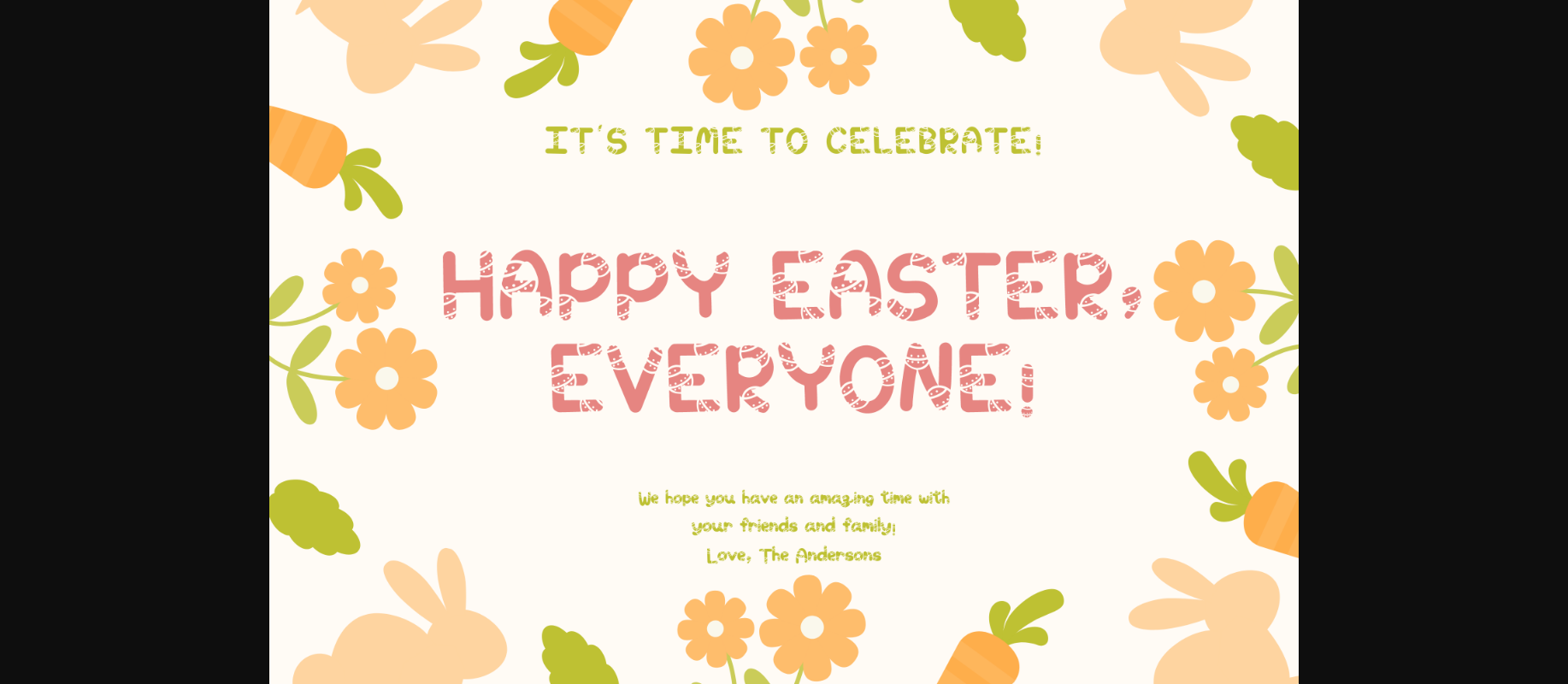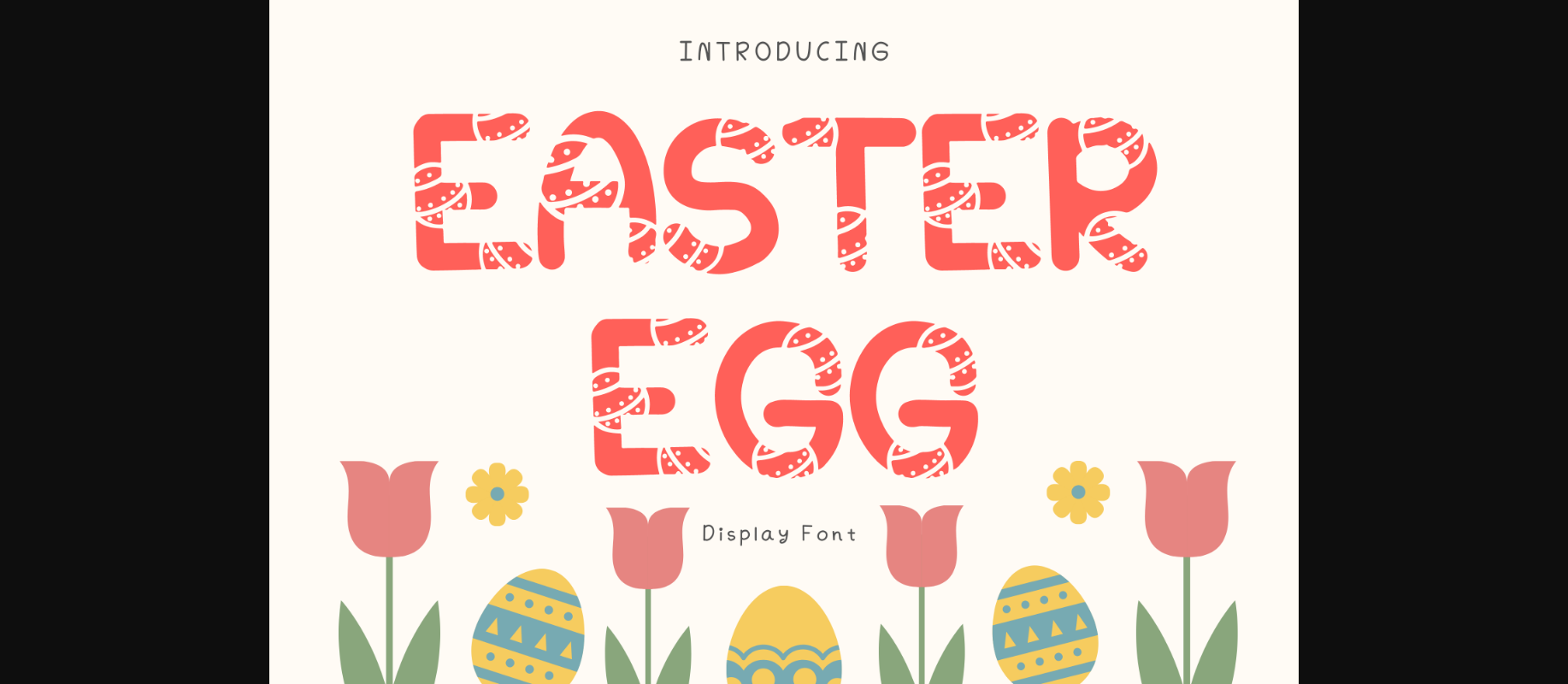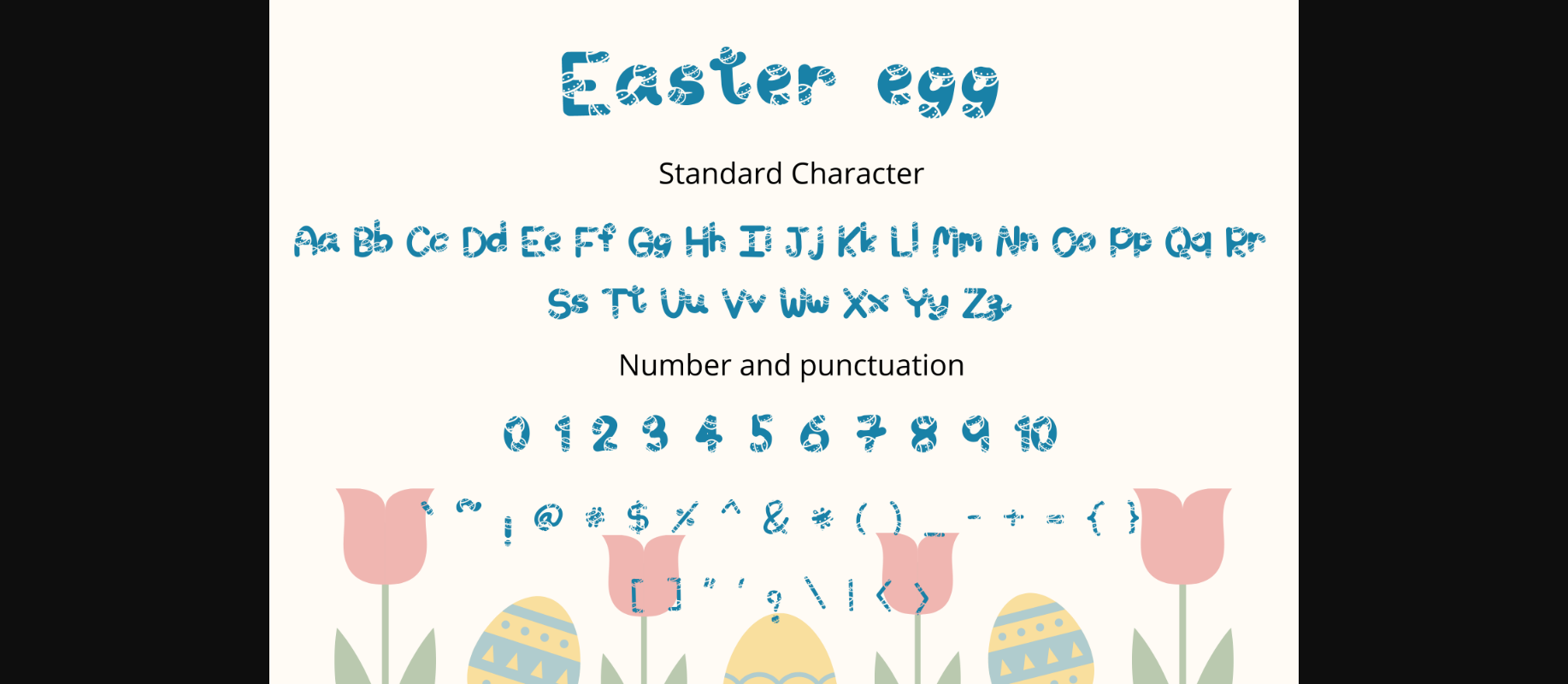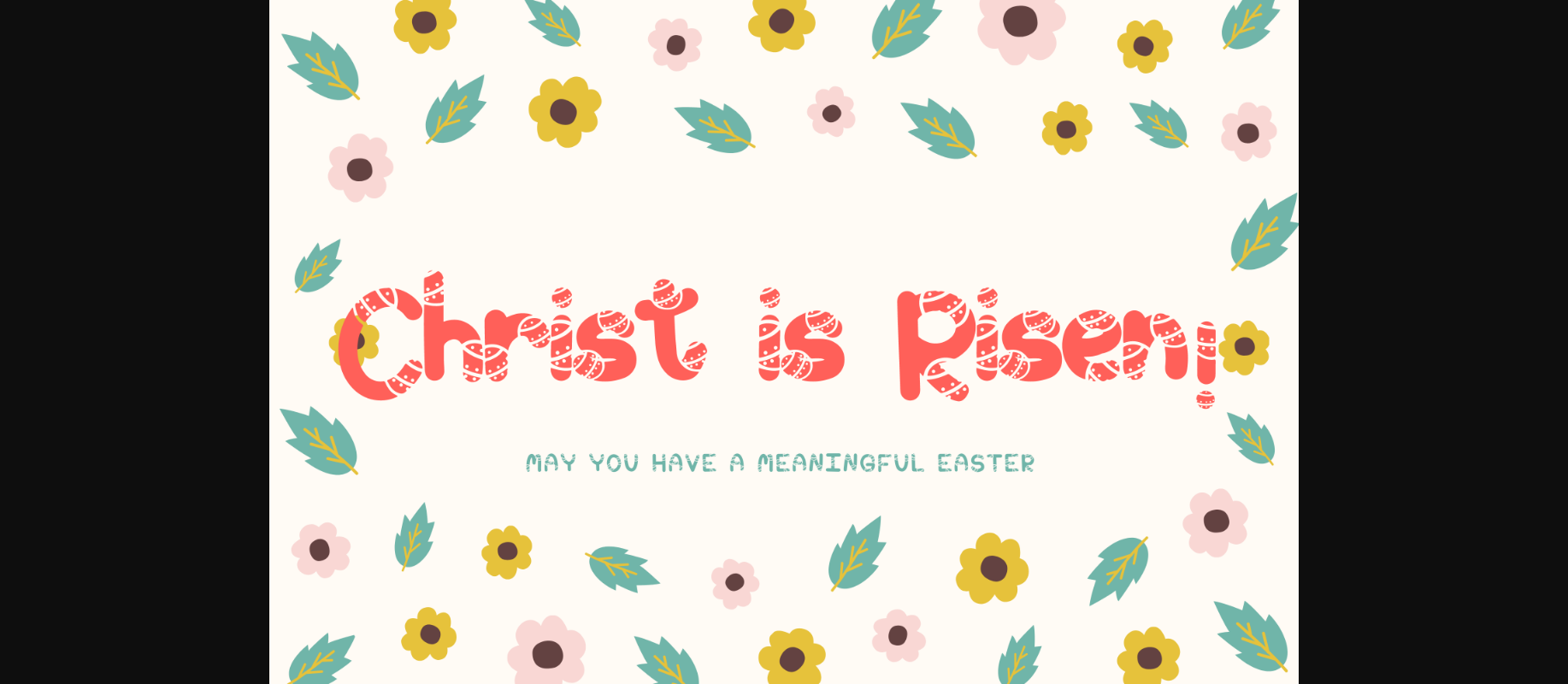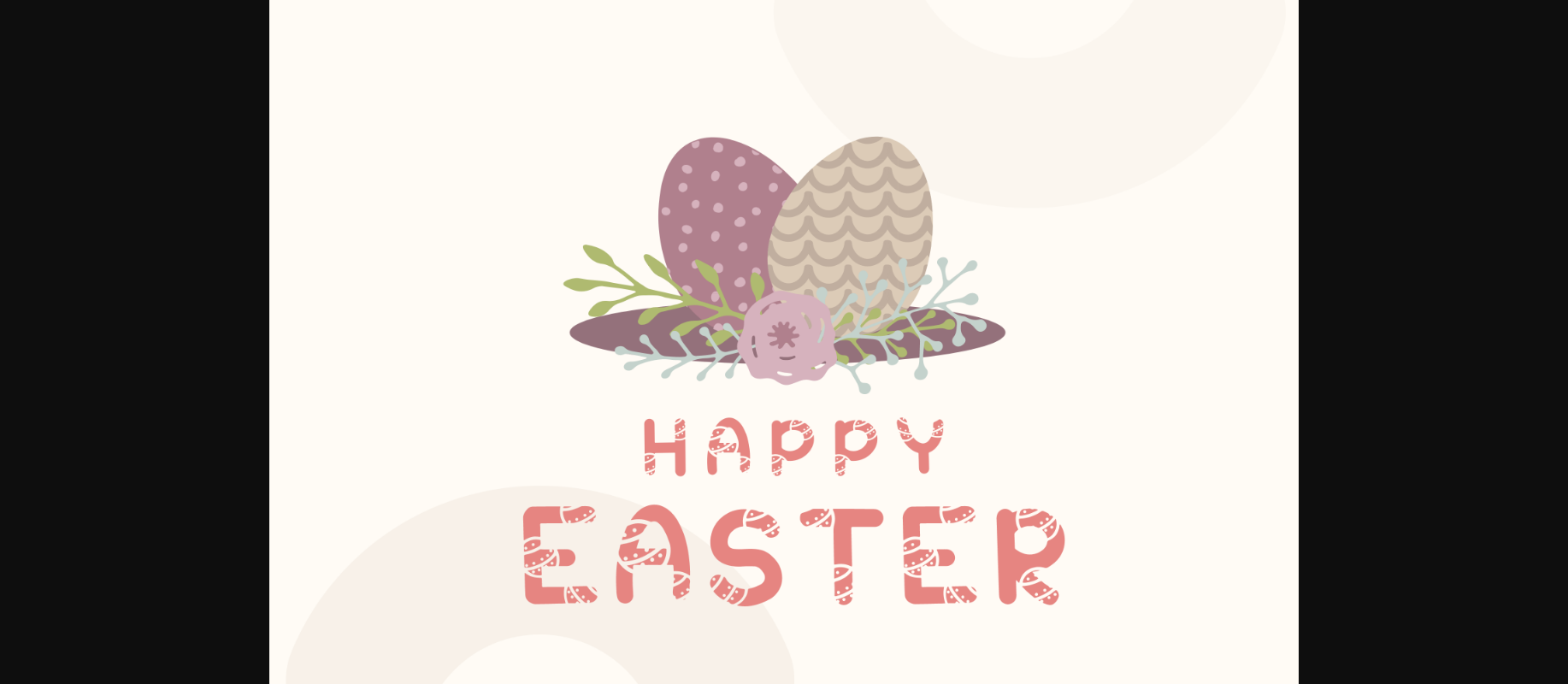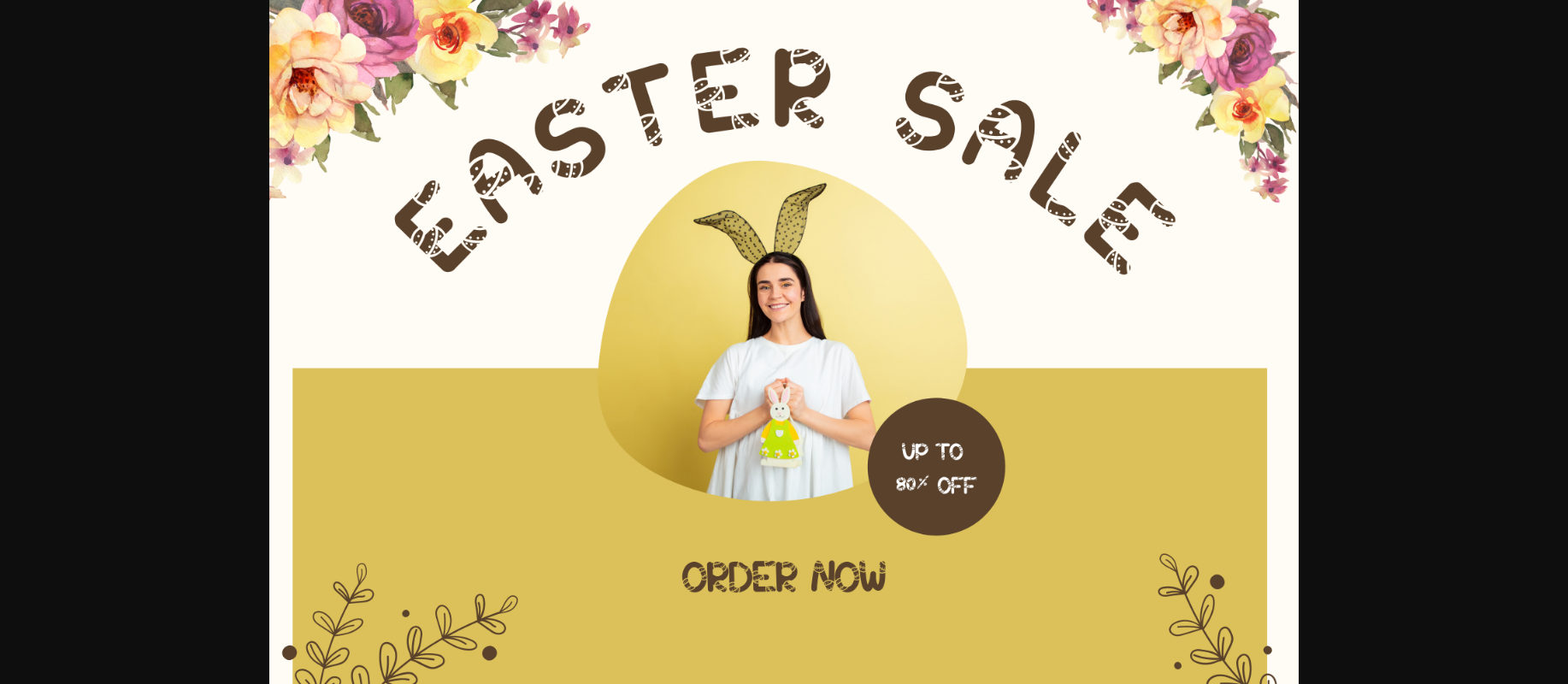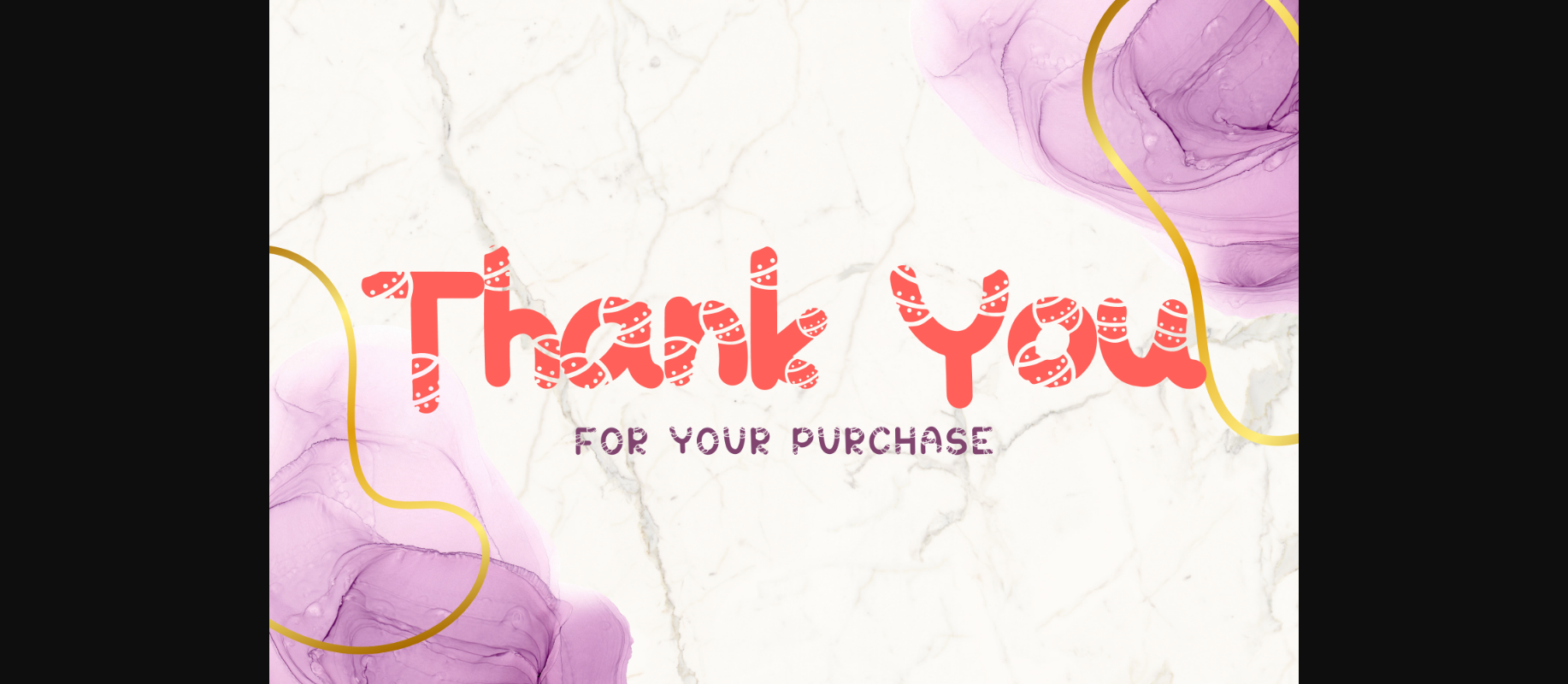
Easter Egg Style is a whimsical festive decorative font. It can easily be matched to an incredibly large set of projects, so add it to your creative ideas and notice how it makes them stand out!